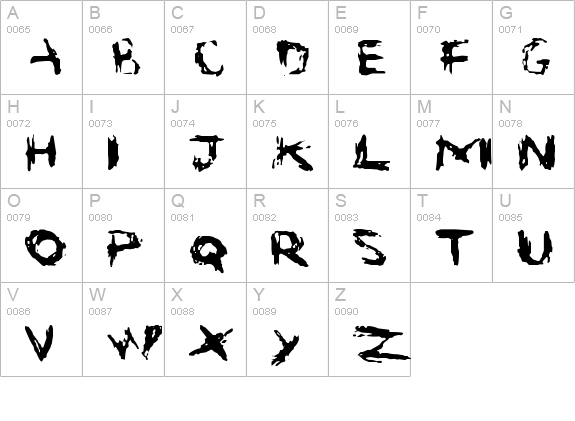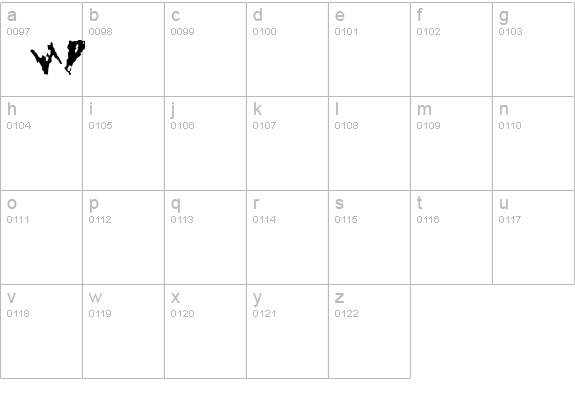
Suicide Font Details
Suicide font is a bold and impactful typeface that exudes a sense of edginess and modernity. Its sharp angles and distinctive letterforms make it perfect for creating attention-grabbing designs and headlines. The font's unique style is sure to make your projects stand out and leave a lasting impression on viewers. Best of all, Suicide font is available for free download at FontsMarket.com. This means you can easily access this eye-catching font and use it in your creative projects without any cost. Whether you're working on posters, logos, or web designs, Suicide font is a versatile and striking choice that will add a touch of flair to your work. Download it now and start incorporating this bold and dynamic font into your designs today.